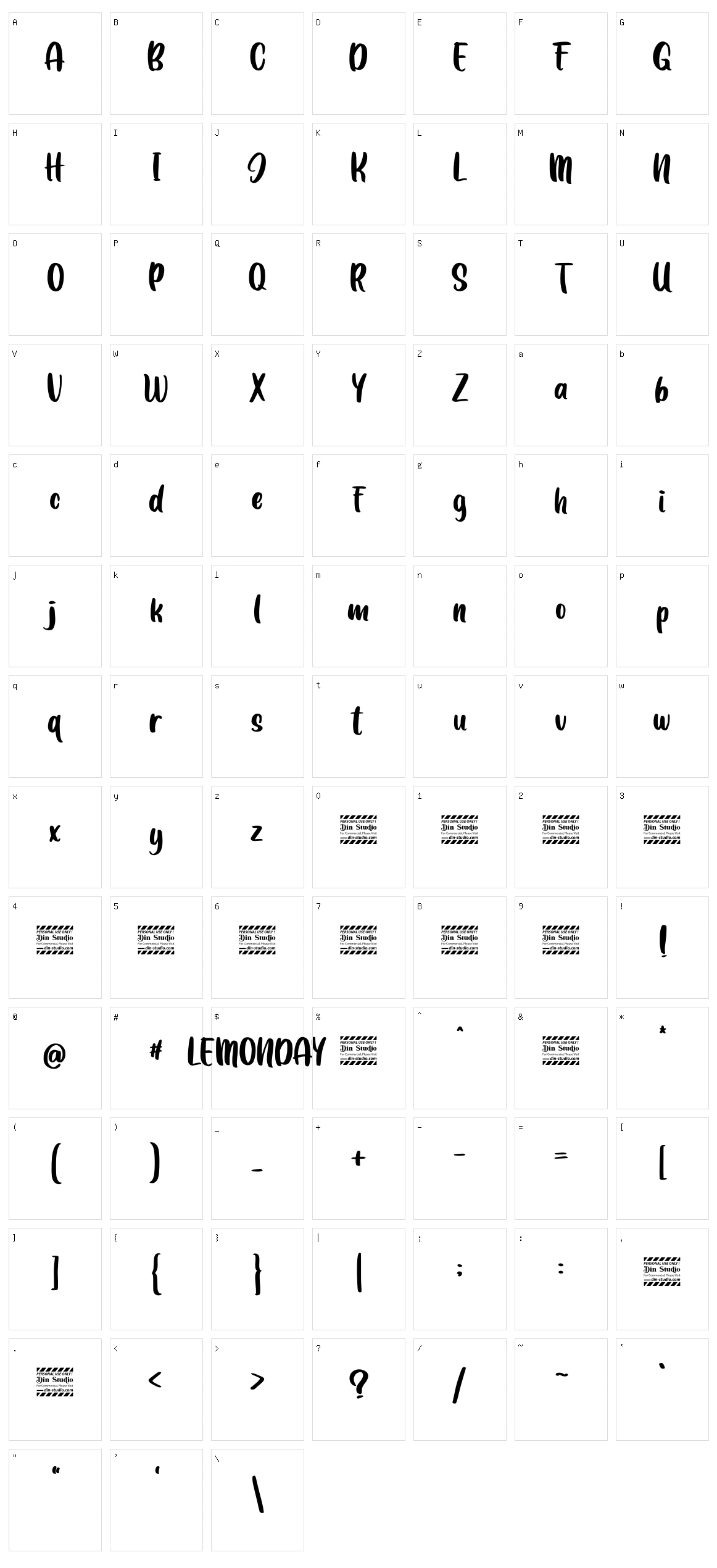
The free font Lemonday is carefully designed by Din Studio, showcasing a thoughtful balance of creativity and usability and falls under the Script font style. When you download the ZIP file, it contains only 287.68 KB of font files, making it lightweight and quick to download. Please review the license details below to understand permitted usage and distribution rights. If license information is not available, we recommend using this font for personal projects only or contacting the author directly for commercial usage permissions.